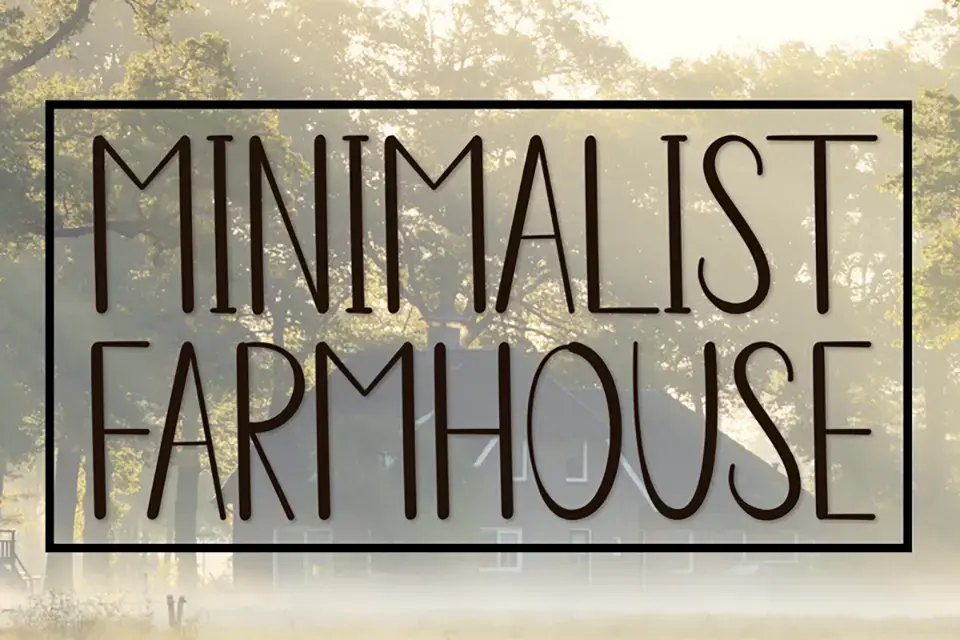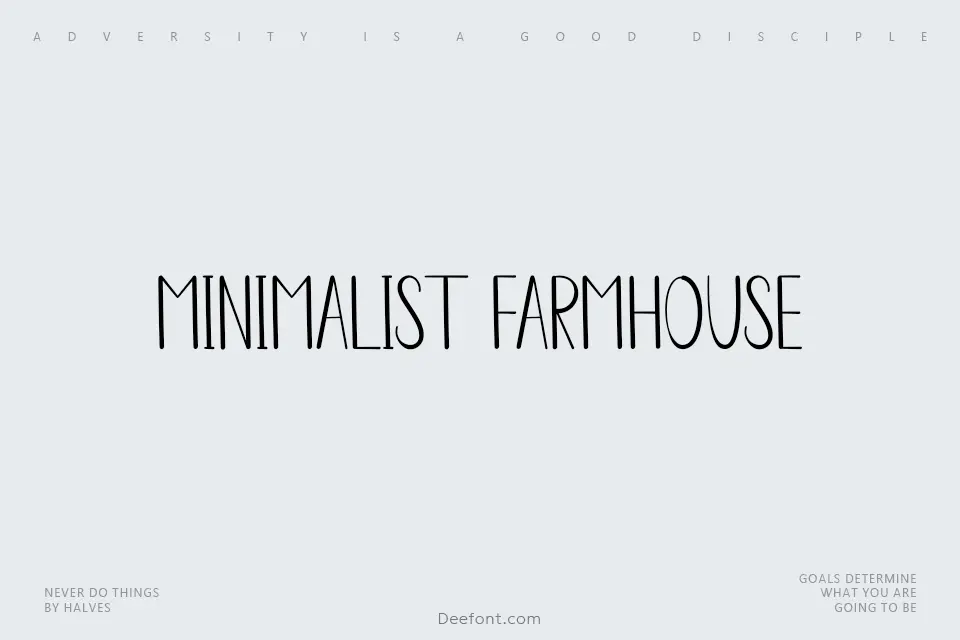
Minimalist Farmhouse Font
Minimalist Farmhouse is a sweet and elegant handwritten display font that captures the essence of rustic charm with modern simplicity. Its condensed, semi-light letterforms exude artisanal warmth and sophisticated minimalism, making it ideal for wedding invitations, farmhouse-themed wall displays, organic product packaging, boutique branding, and intimate event stationery. With carefully crafted letterforms that blend handwritten appeal with contemporary aesthetics, this typeface brings authentic character to design projects requiring a personal, rustic yet polished touch.